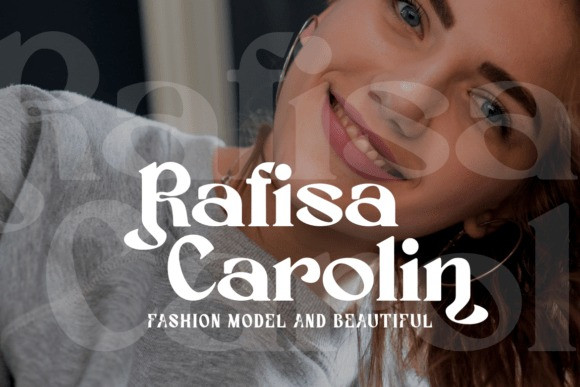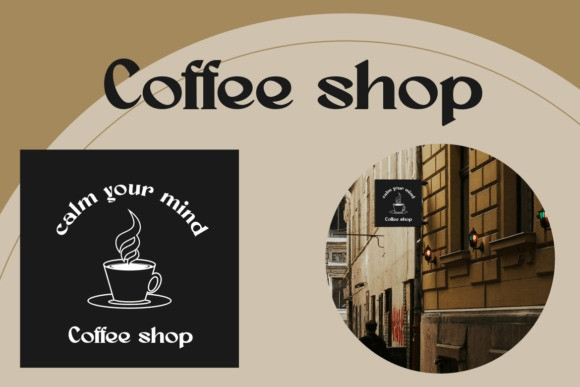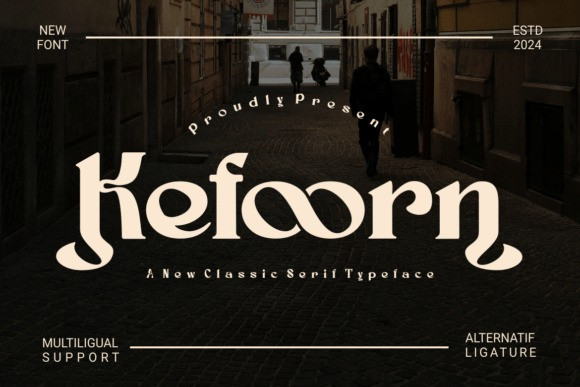
Kefoorn Font
Kefoorn Font is a bold and stylish serif typeface with a modern classic twist. Its sharp yet elegant characters, combined with unique ligatures, make it the perfect font for branding, editorial layouts, and high-end packaging. Designed with multilingual support, Kefoorn effortlessly elevates your design projects with a timeless flair.